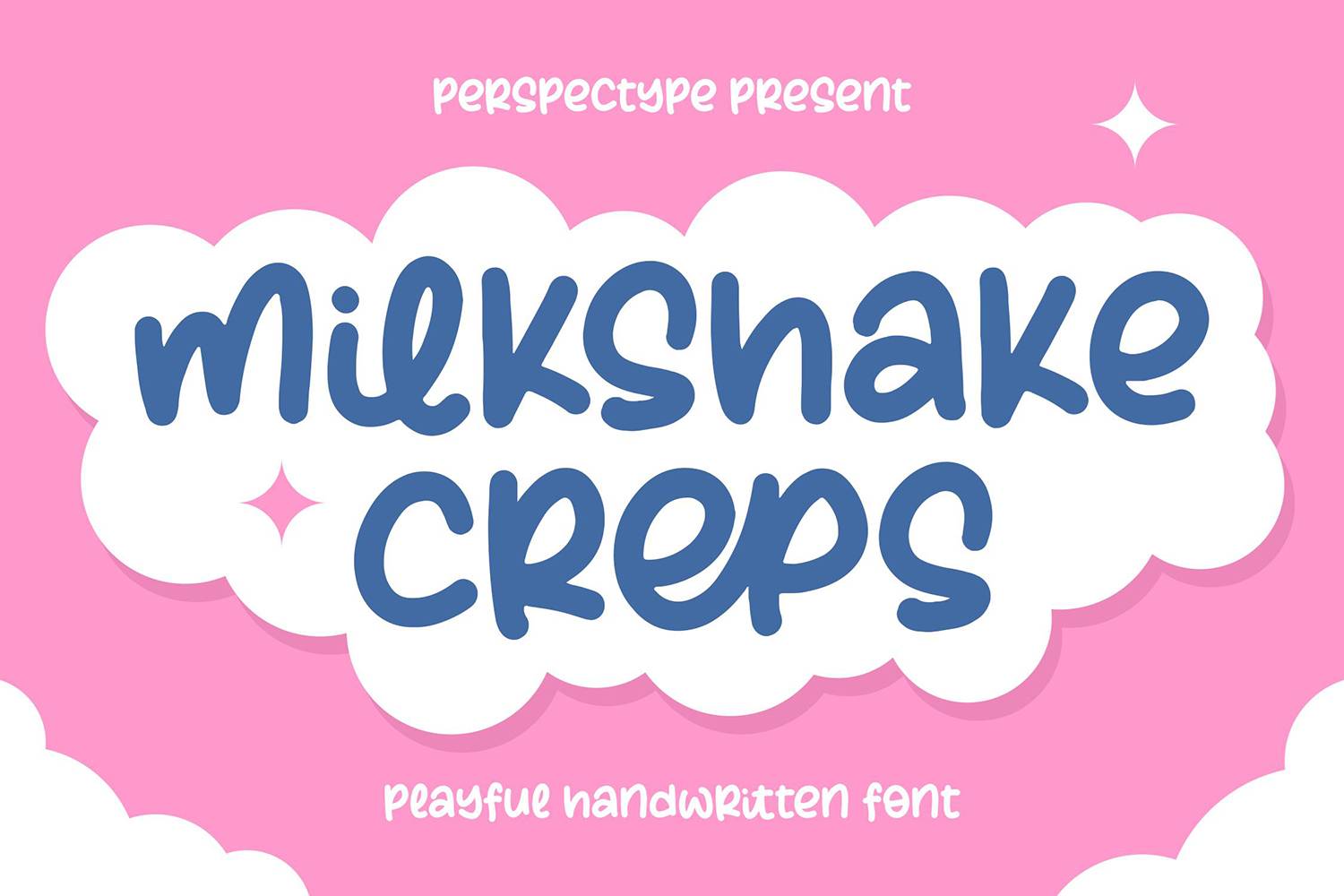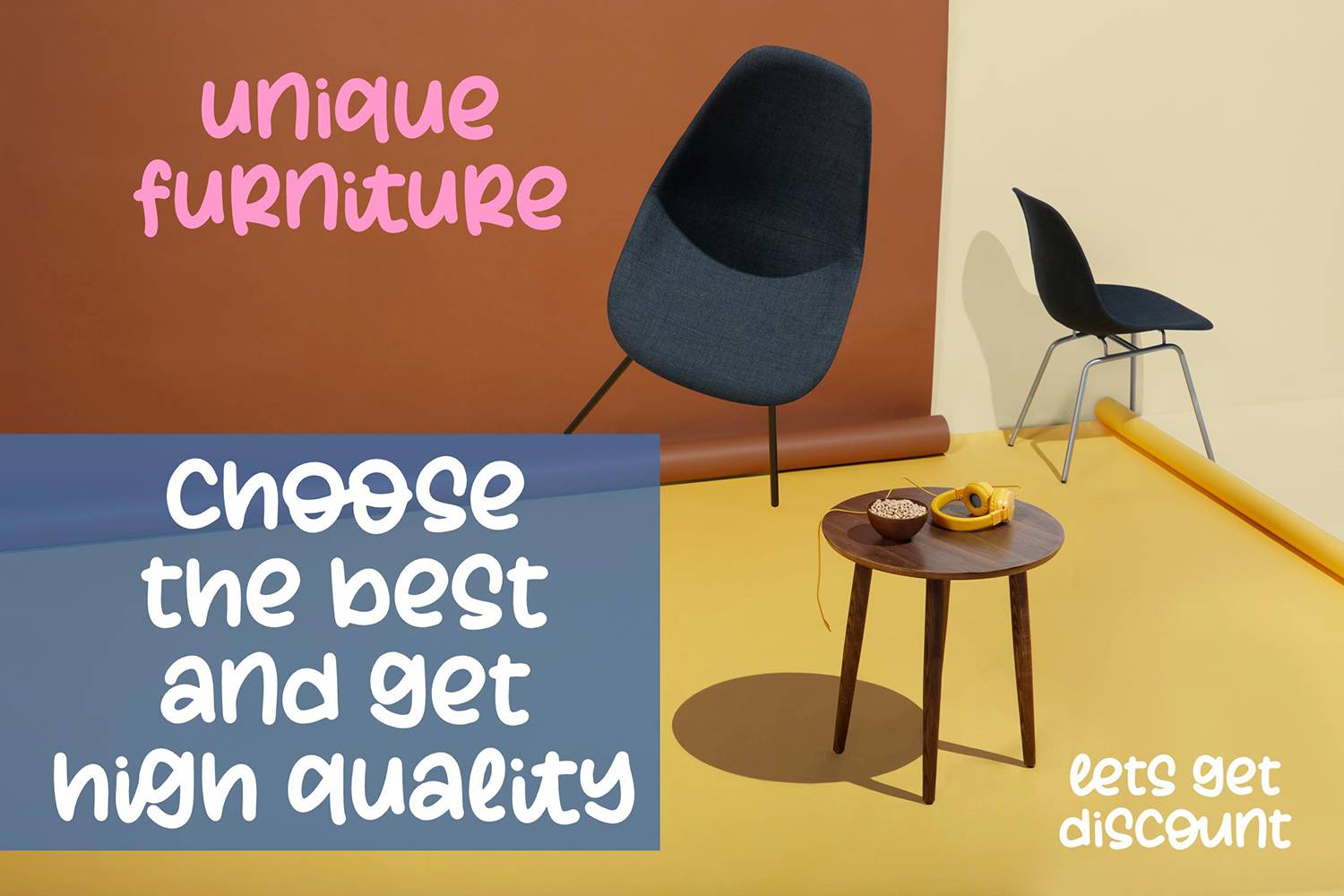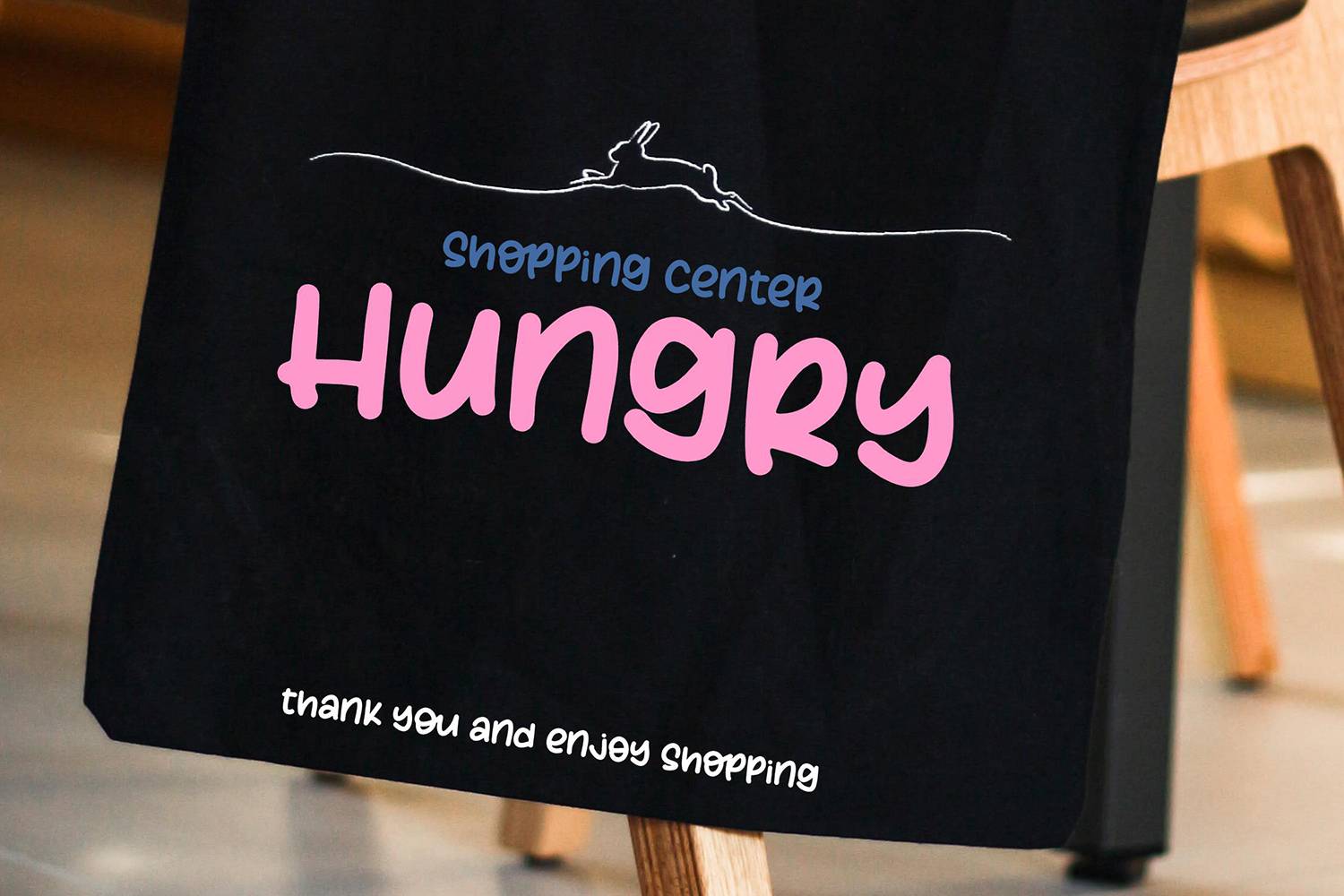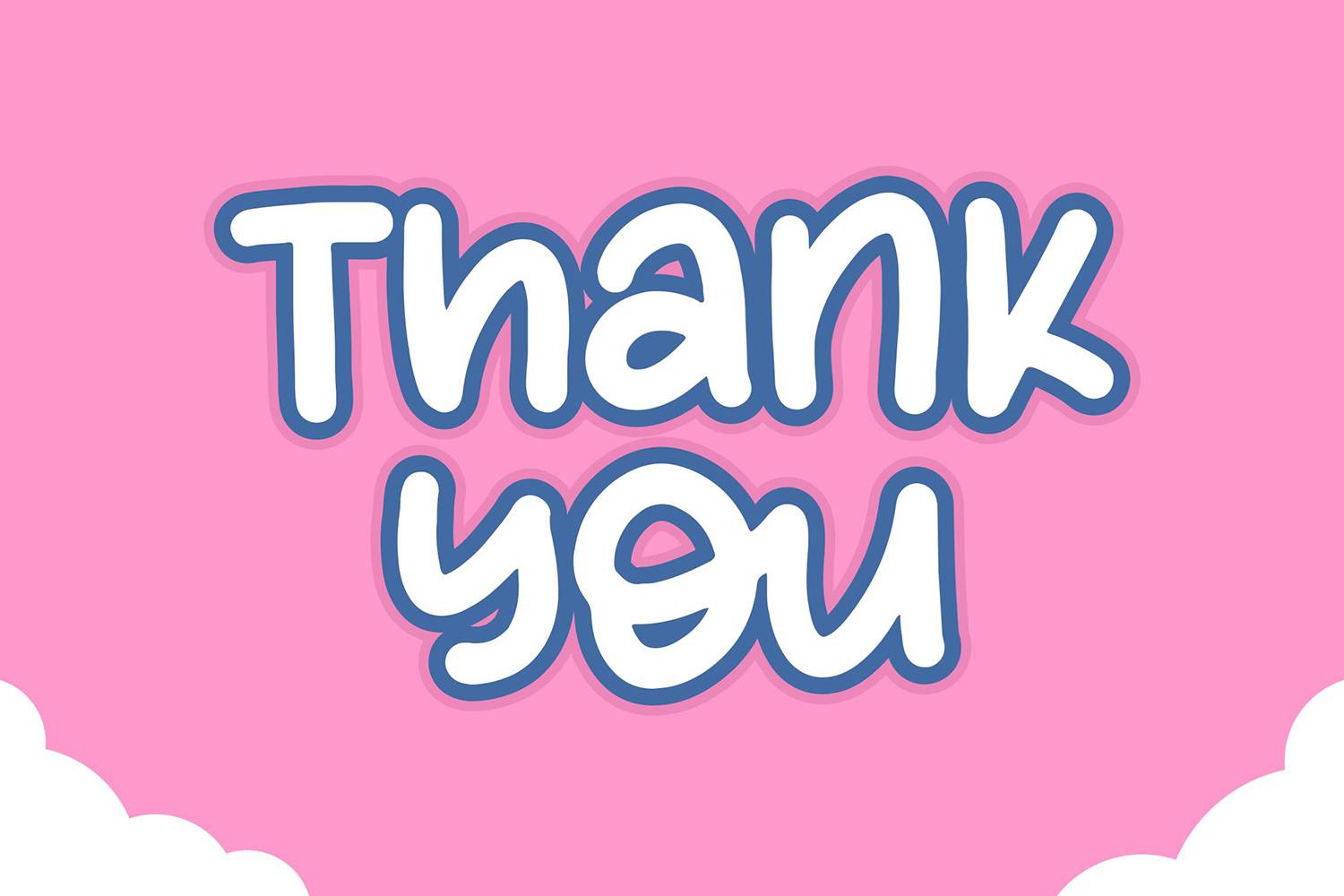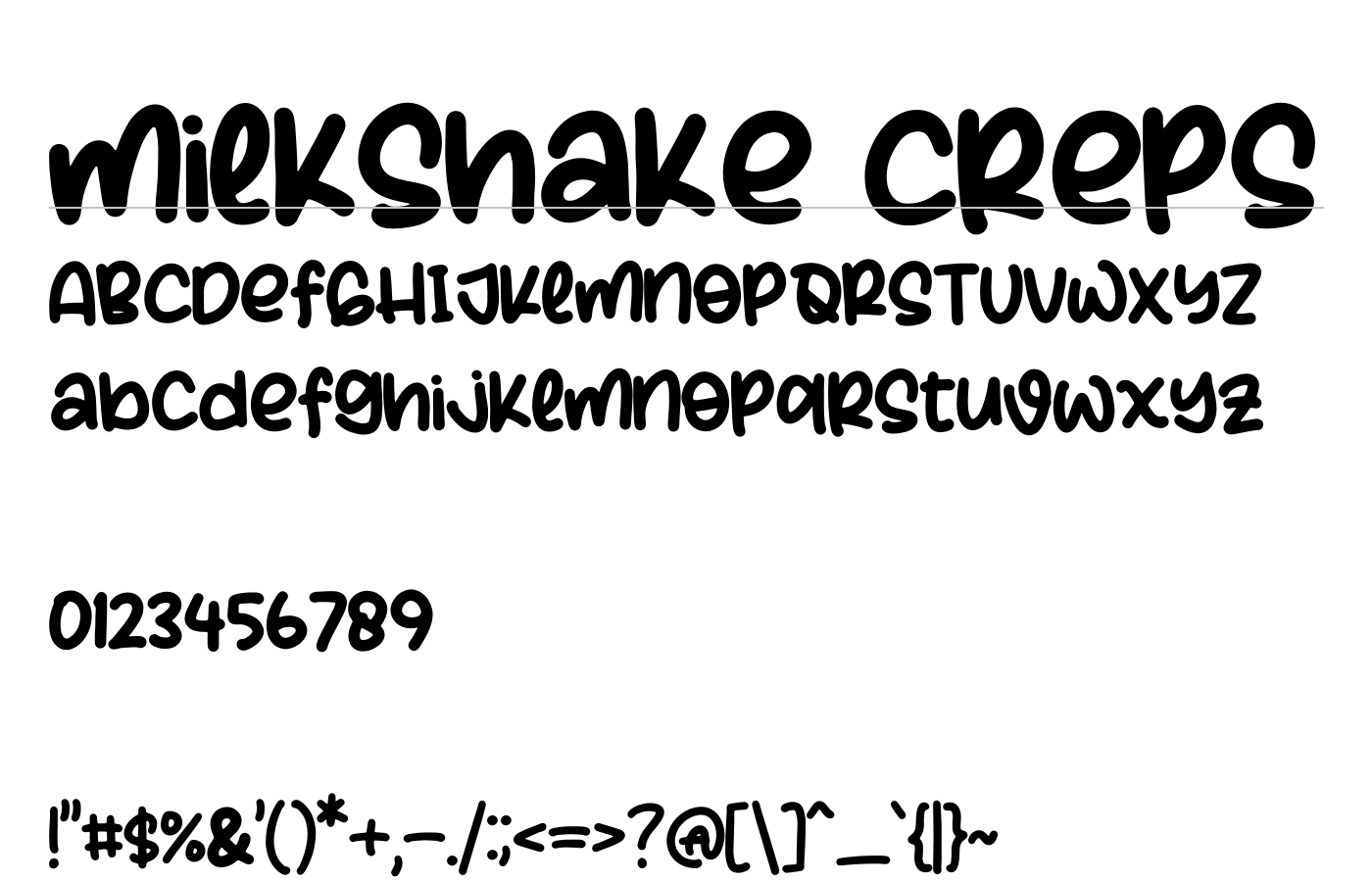
Milkshake Creps is a playful and casual handwritten font with a bold, rounded style that feels friendly and approachable. Its consistent stroke weight and slightly irregular letterforms give it a lively, informal character perfect for fun, youthful designs, making it ideal for children’s products, creative branding, and eye-catching headlines. This font works best where a warm, personal touch is needed to connect with audiences in an engaging and cheerful way.
Milkshake Creps Font
About Milkshake Creps Font
| Font family | Milkshake Creps Font |